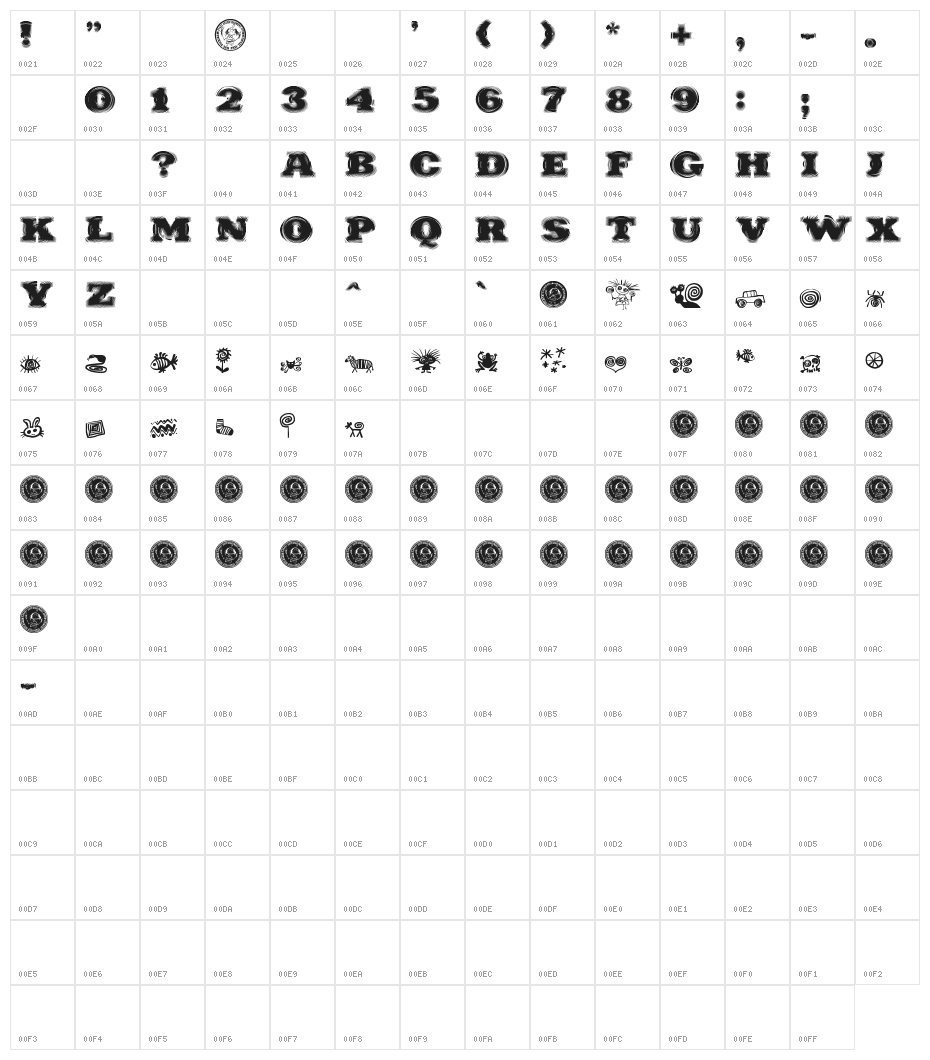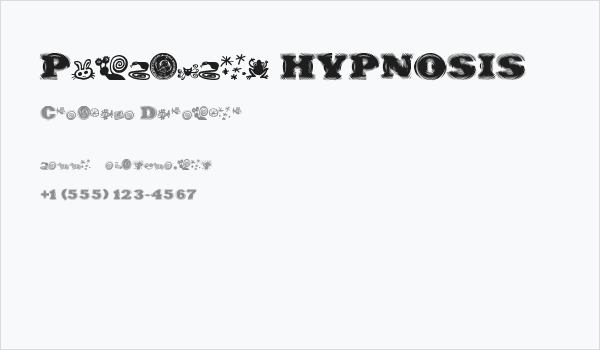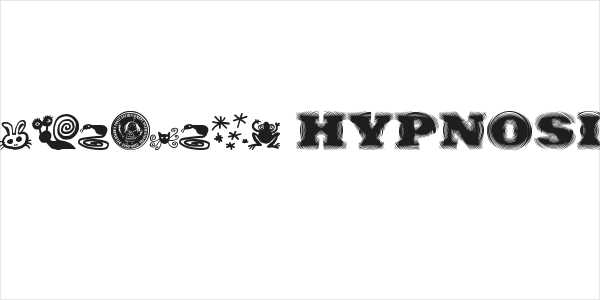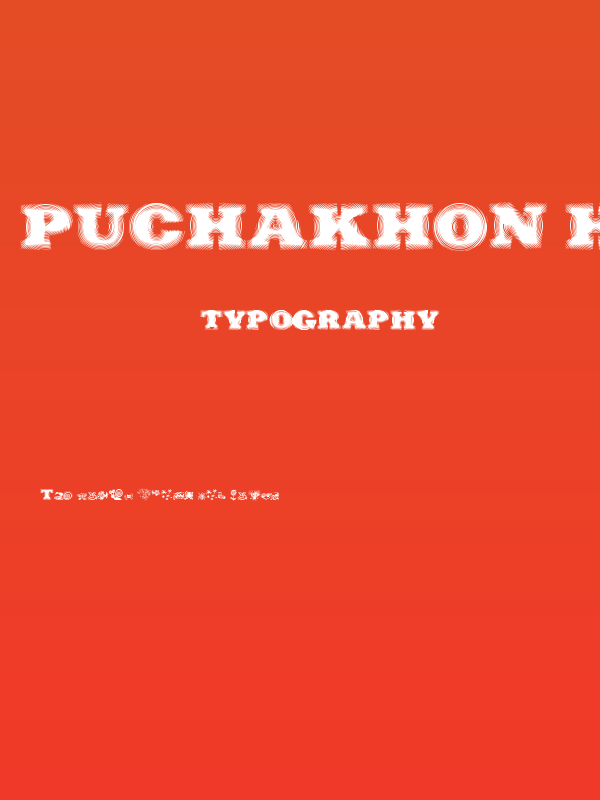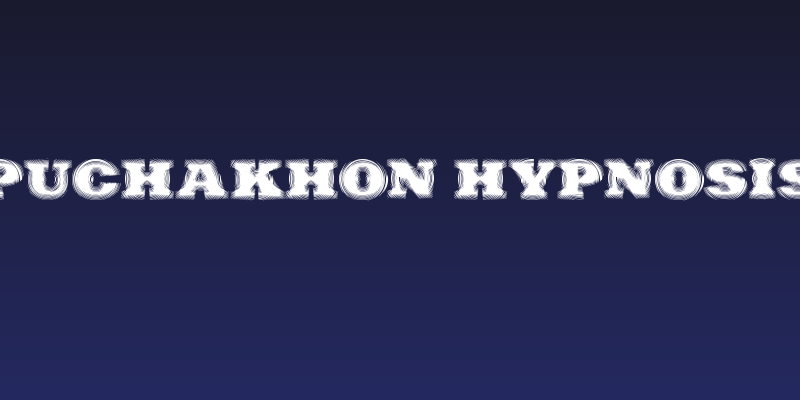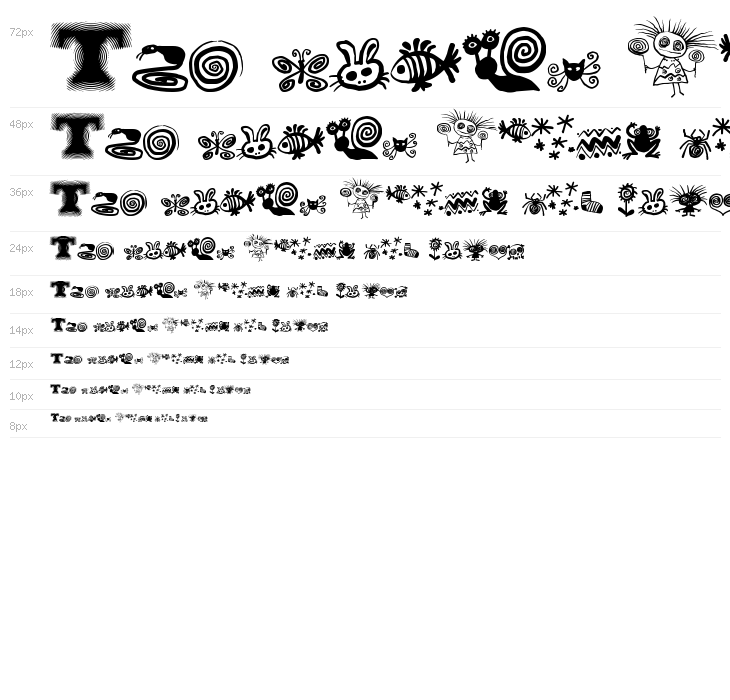
Puchakhon HYPNOSIS Font
Puchakhon HYPNOSIS Description
This font is a bold and decorative typeface with a hypnotic, swirling pattern that gives each character a dynamic and eye-catching appearance. The uppercase letters are robust and heavily stylized, featuring intricate details that create a sense of movement and depth. The numbers follow a similar design, maintaining the swirling motif that adds to the overall hypnotic effect. The special characters are equally ornate, fitting seamlessly with the rest of the font's unique style. This typeface is perfect for projects that require a bold statement or a touch of whimsy, making it ideal for creative and artistic applications.
| Proposed Projects | Ideal for posters, album covers, event flyers, and creative branding projects. |